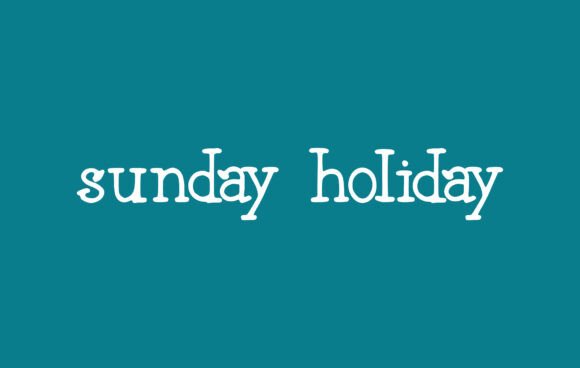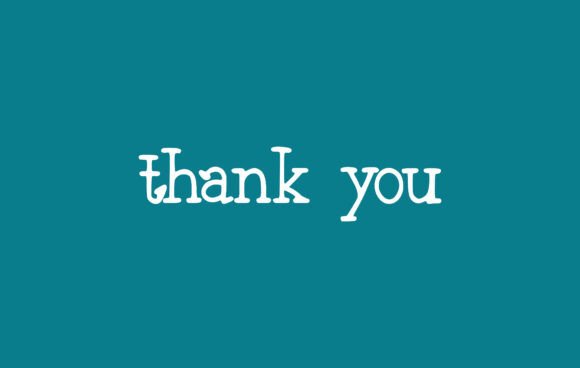
Introduction to Mckinley Font
Mckinley font is an authentic handwritten font with a romantic touch.
Mckinley Font offers exceptional quality and versatility, making it a valuable addition to your design toolkit. Whether you’re creating for personal projects or commercial use, Mckinley Font delivers professional results.